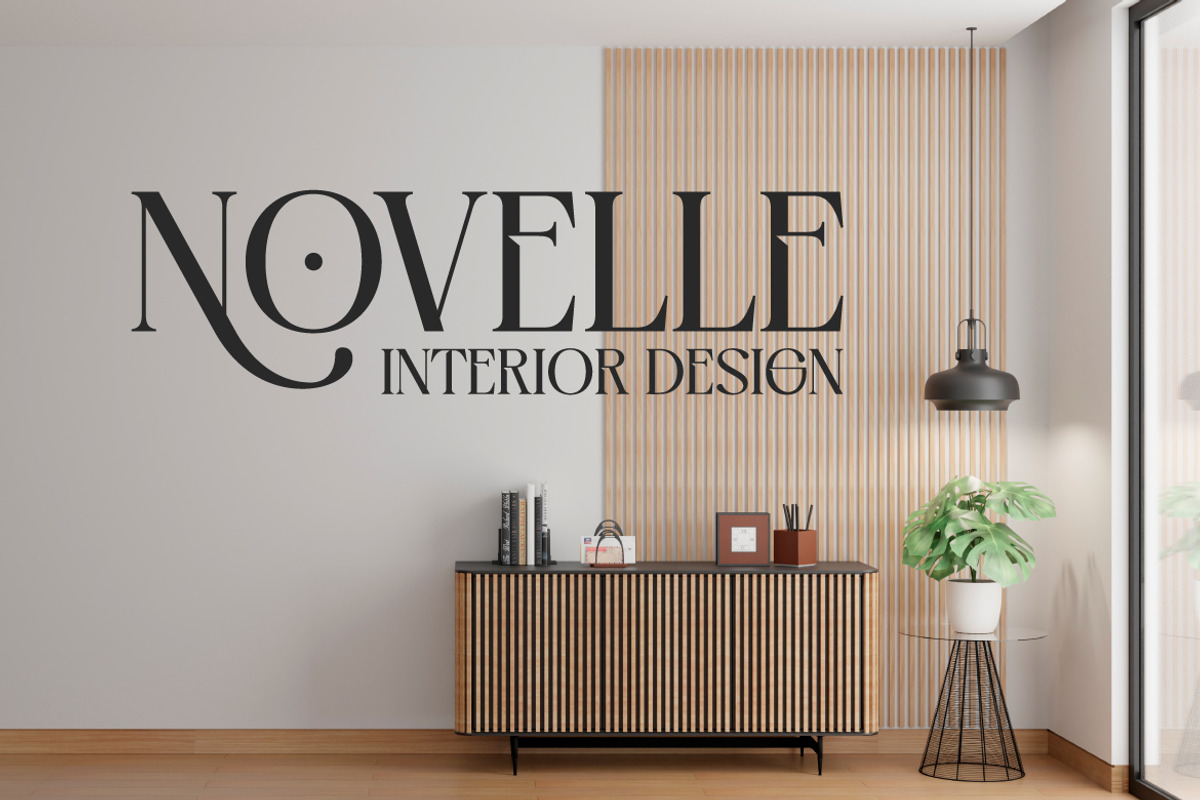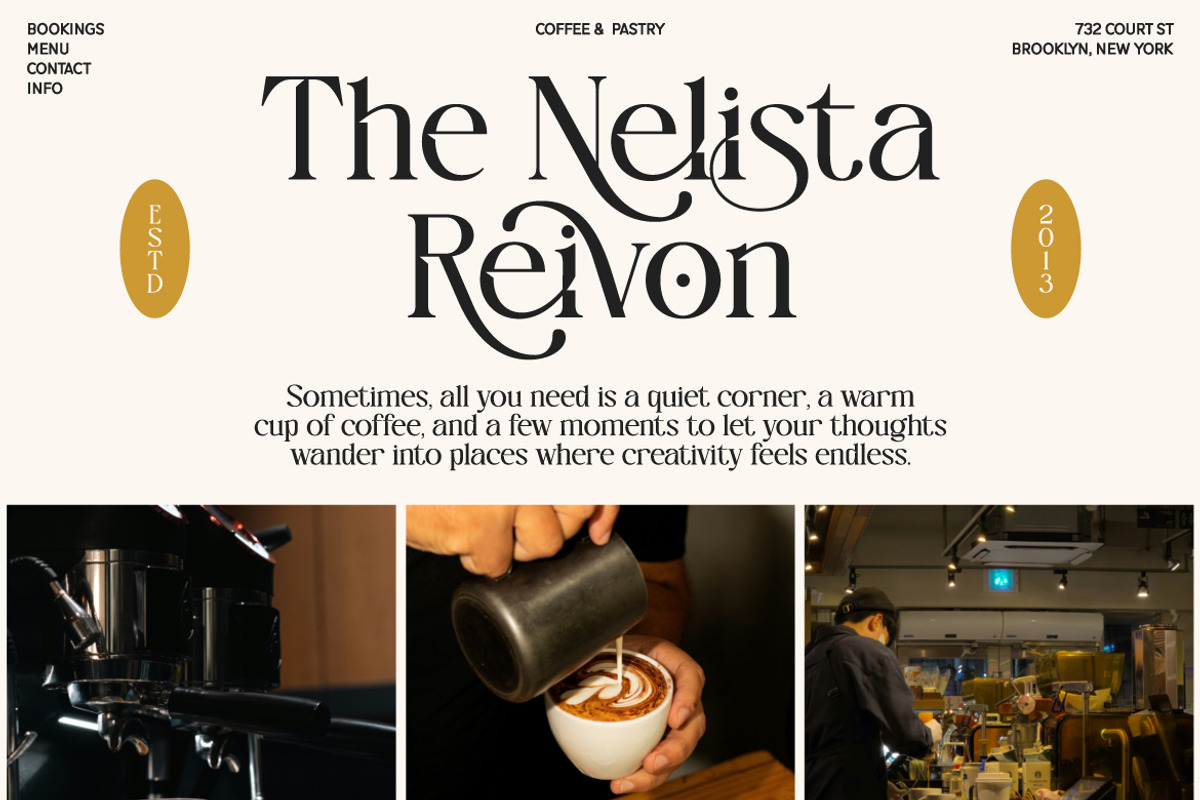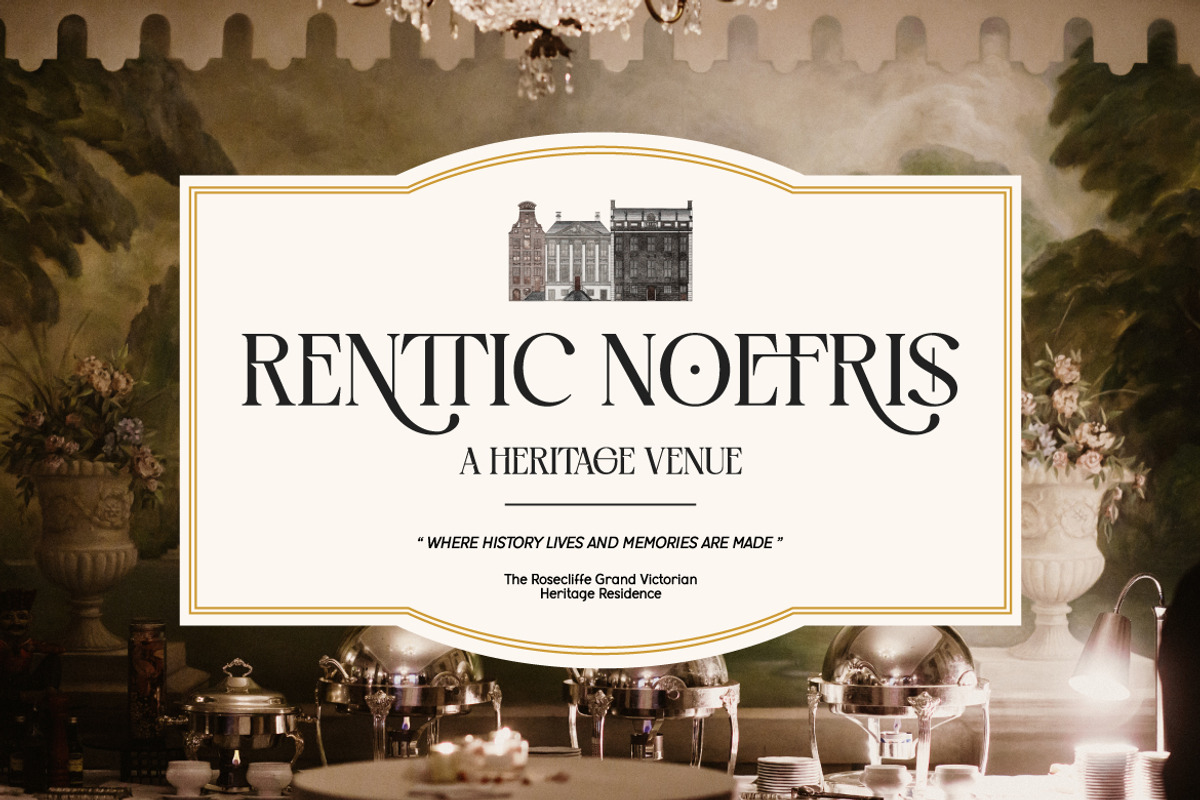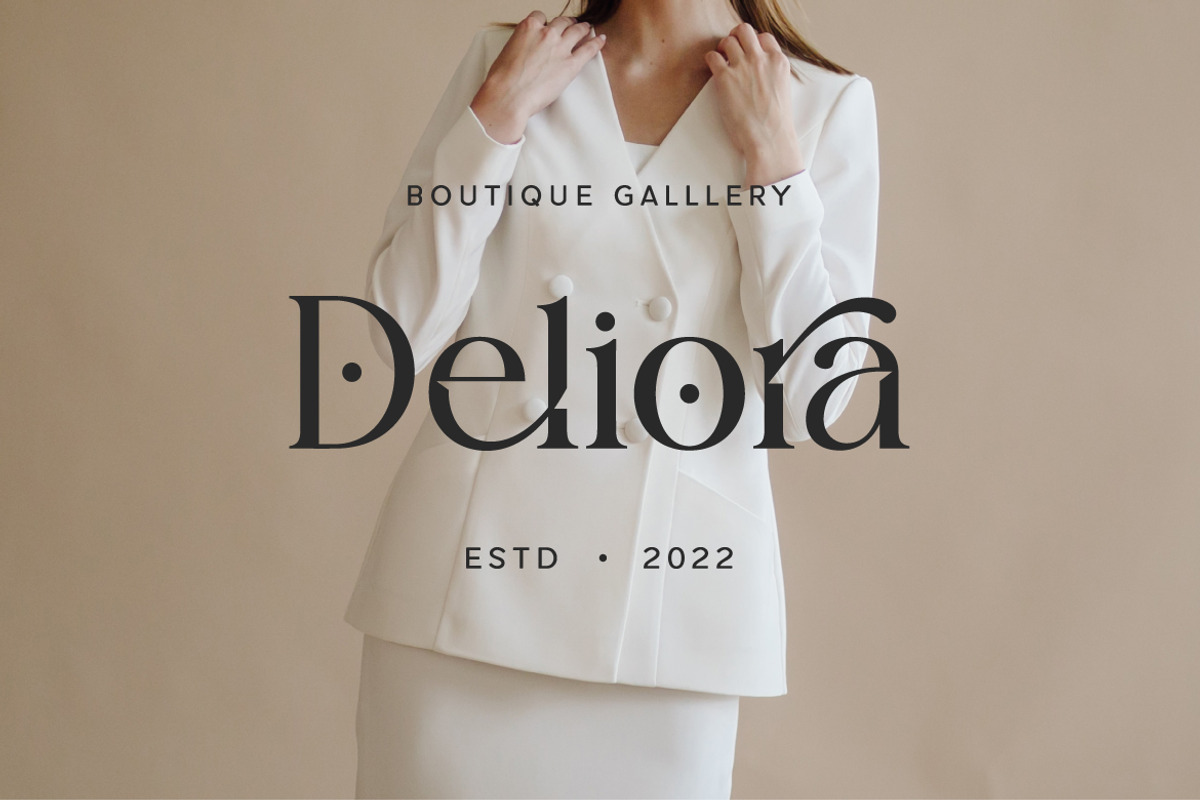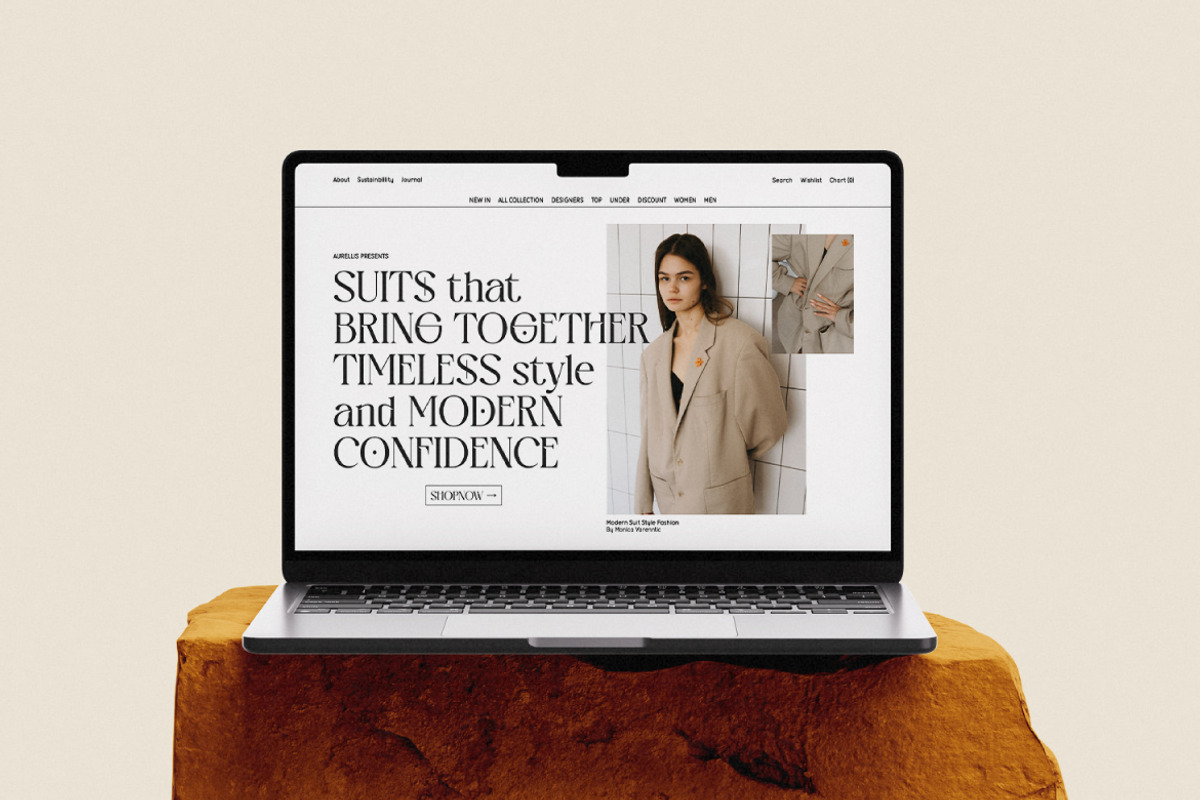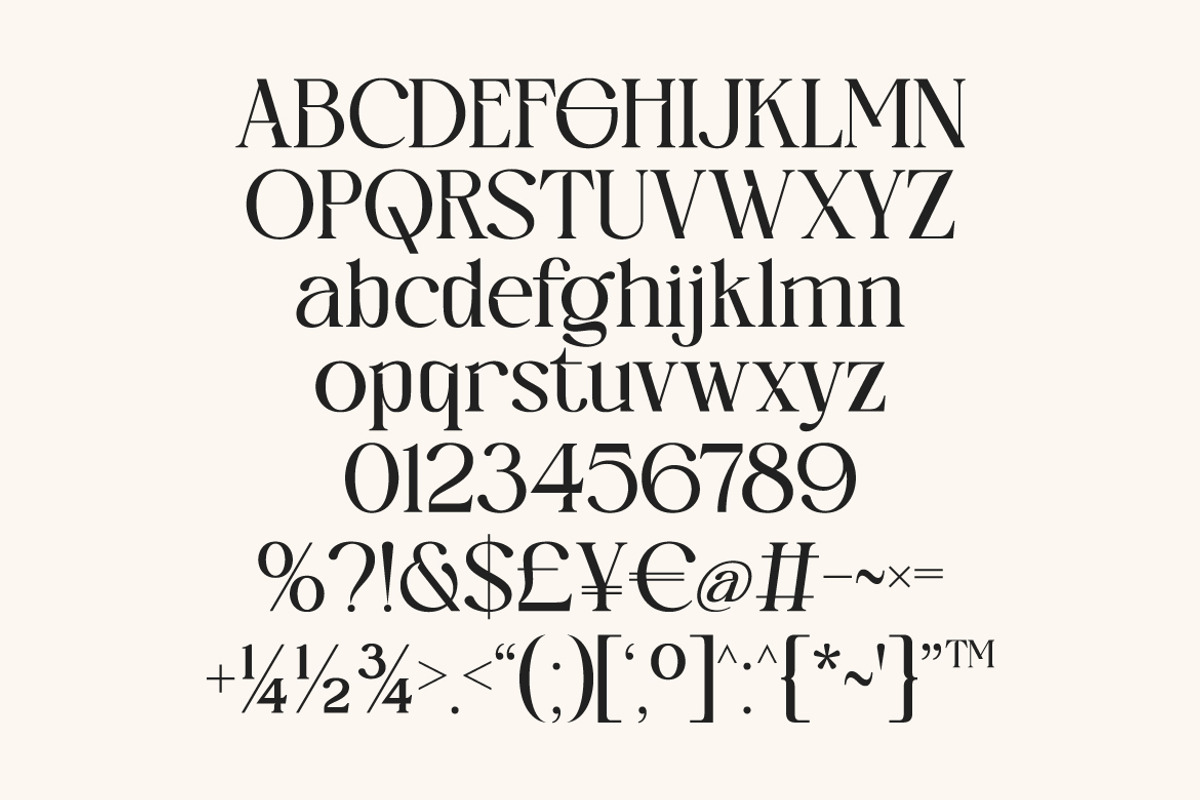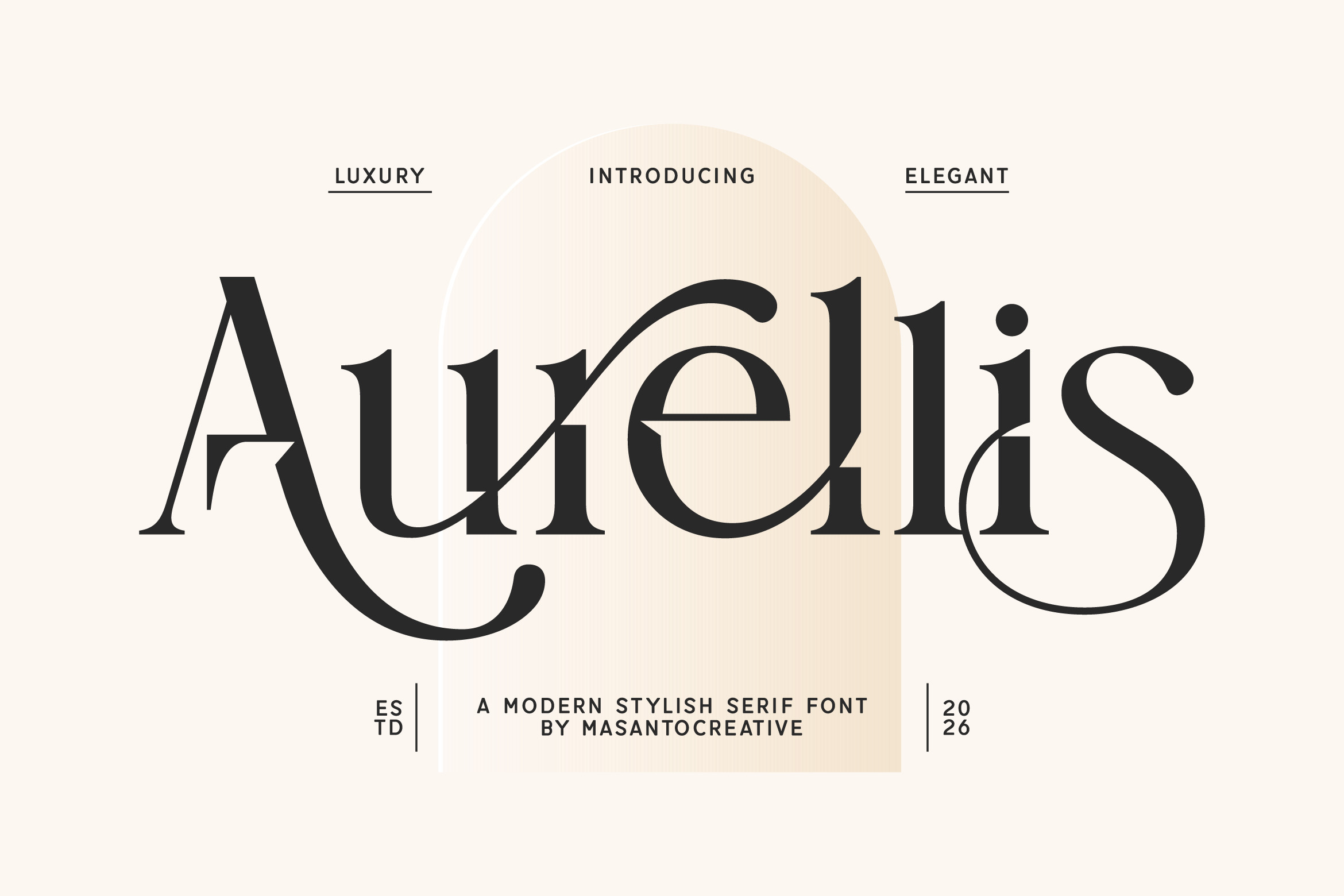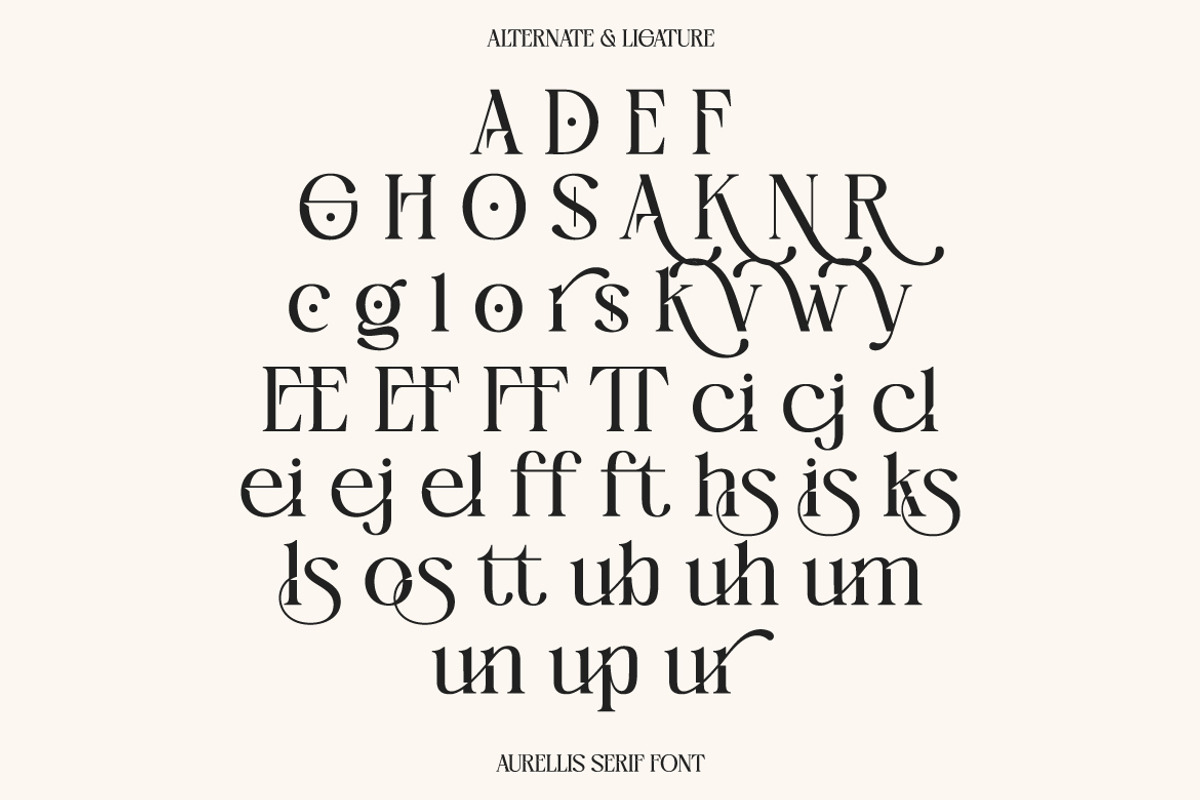
Aurellis – Elegant Luxury Serif Font
Aurellis is a modern elegant serif font designed to bring a luxurious and sophisticated touch to your creative projects. Featuring high-contrast strokes, refined curves, and stylish ligatures, this font is perfect for branding, editorial design, fashion, and premium visual identities. With its unique character shapes and beautifully crafted alternates, Aurellis delivers a timeless aesthetic that blends classic elegance with a contemporary feel. Whether used for logos, websites, packaging, or social media, it enhances visual appeal with effortless grace.
- Luxury branding
- Fashion & boutique designs
- Logo & identity
- Editorial & magazine layouts
- Wedding & event design
- Interior & lifestyle branding
- Stylish Ligatures
- Alternate Characters
- High contrast elegant serif style